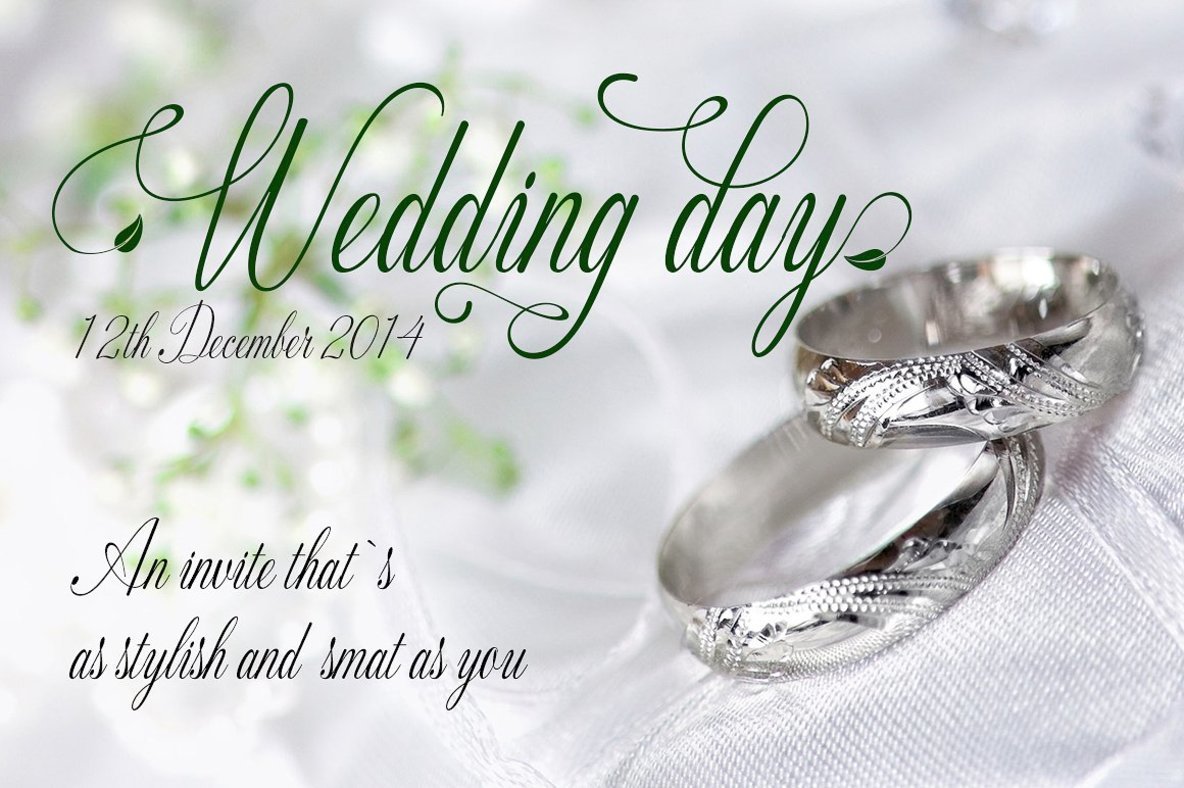
Fameliya Font
Fameliya
Fameliya captures the essence of elegance with its script-like flow, making it a fitting choice for wedding-related designs and bespoke labels. Its aesthetic is perfect for projects that require a personal touch, whether for invitations, event branding, or unique design pieces. Features:Fameliya: A Unique Script for Special Occasions
Fameliya blends sophistication with functional adaptability, providing a seamless experience for designers seeking finesse in their typographic selections.